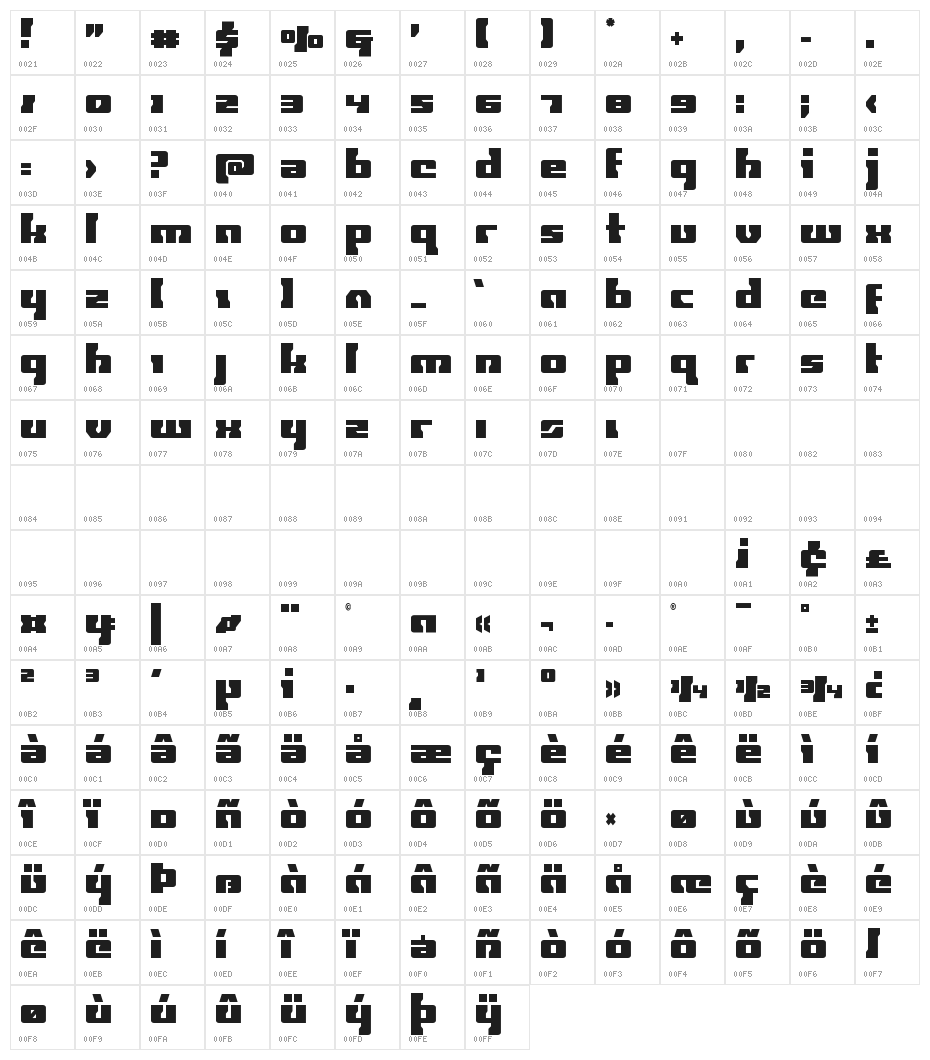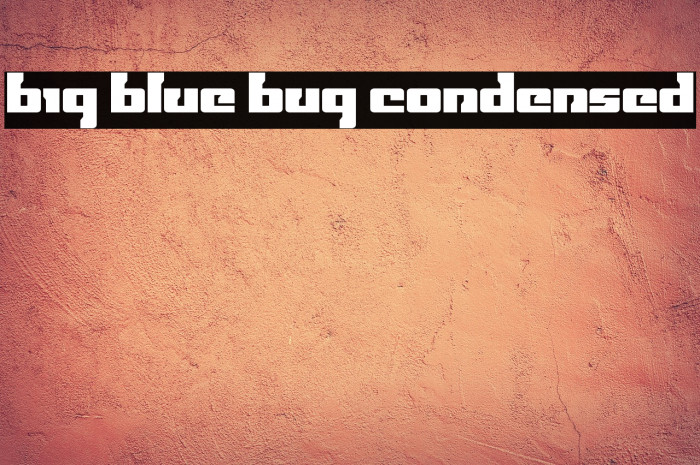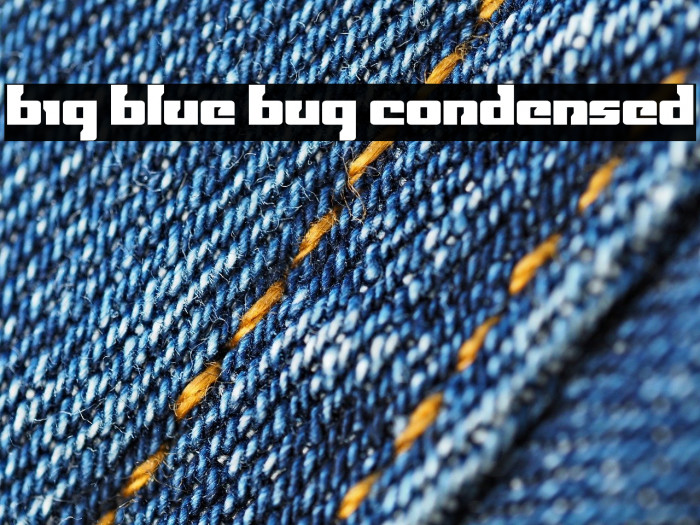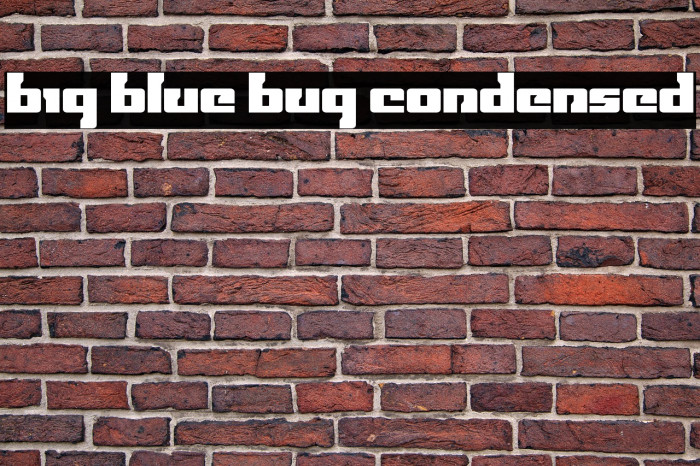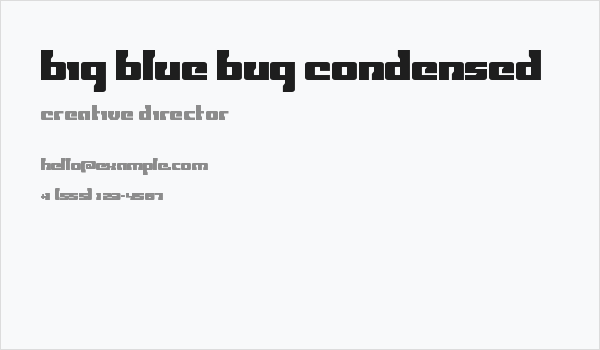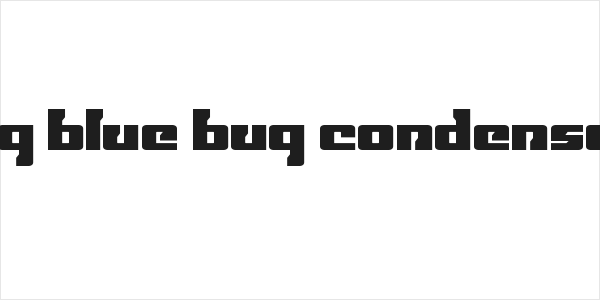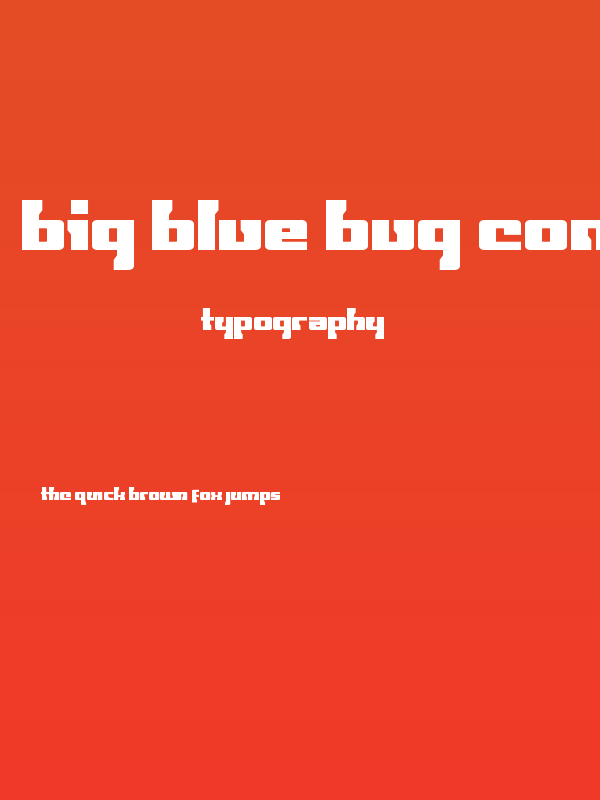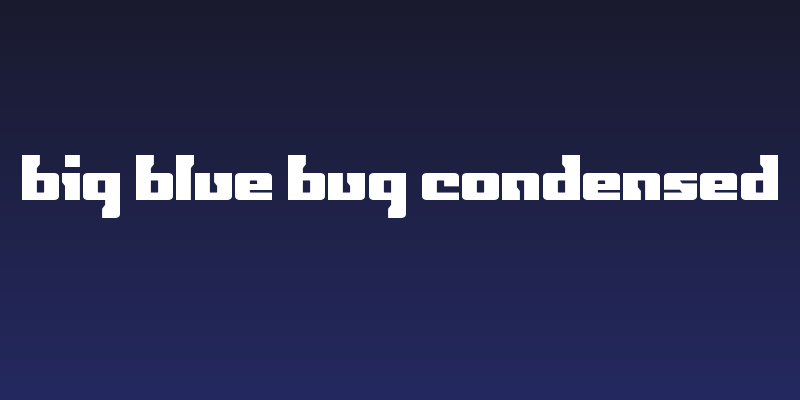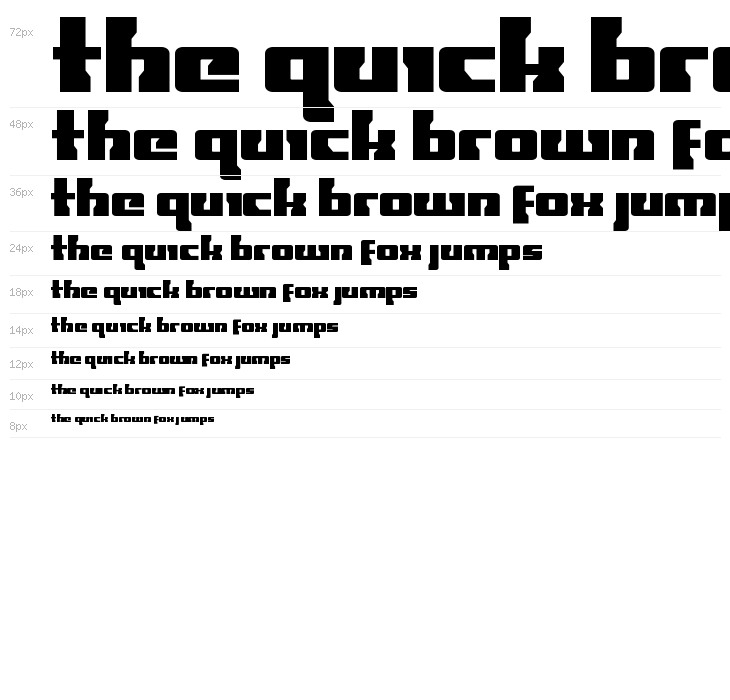
Big Blue Bug Condensed Font
Big Blue Bug Condensed Description
This font features a bold and condensed style with a distinctly modern and geometric appearance. The characters are blocky and robust, with sharp angles and a uniform thickness throughout. The uppercase and lowercase letters maintain a consistent height, contributing to a cohesive and compact look. The numerals and special characters follow the same design principles, ensuring visual harmony across all elements. This font's strong presence makes it ideal for impactful designs.
| Proposed Projects | Ideal for posters, logos, headlines, and branding materials that require a strong visual impact. |